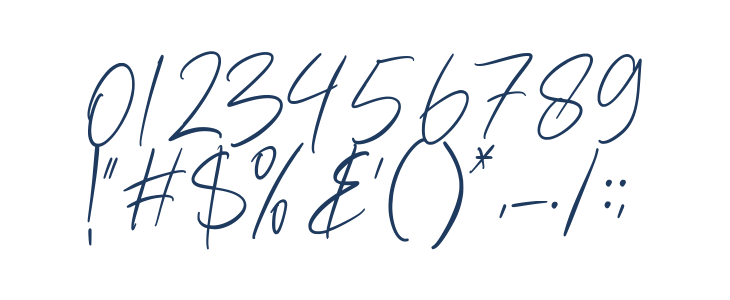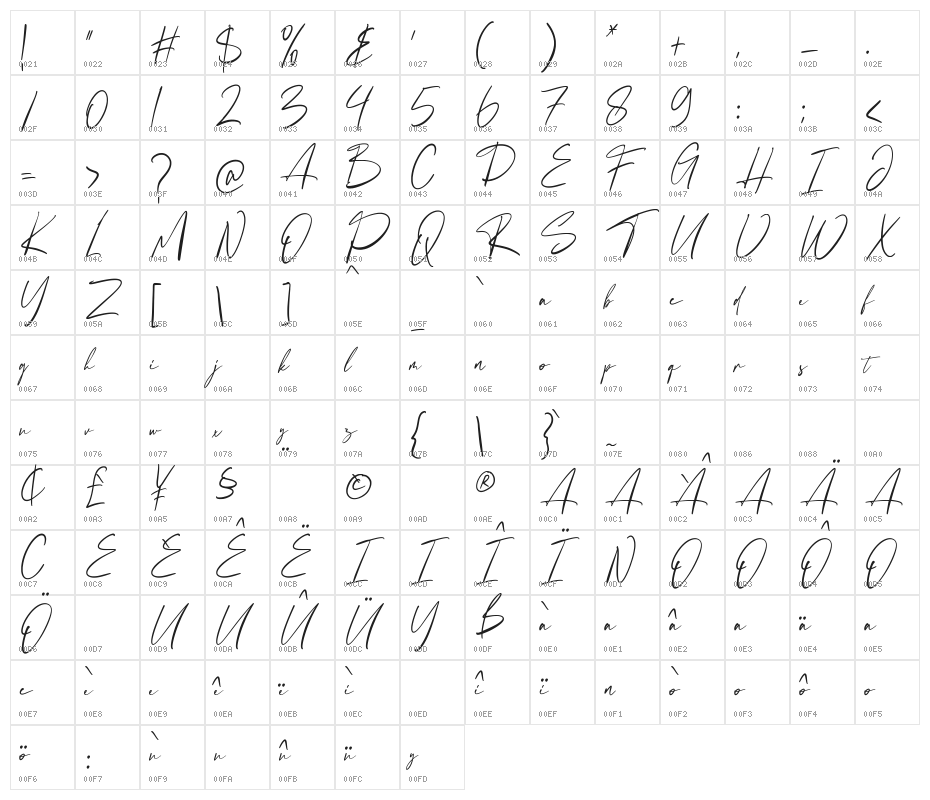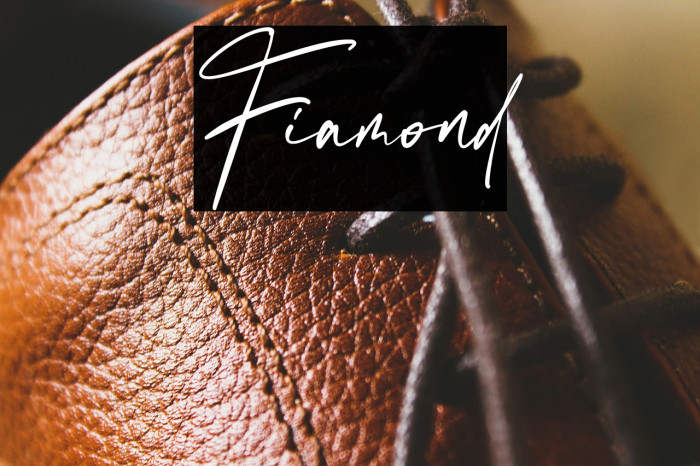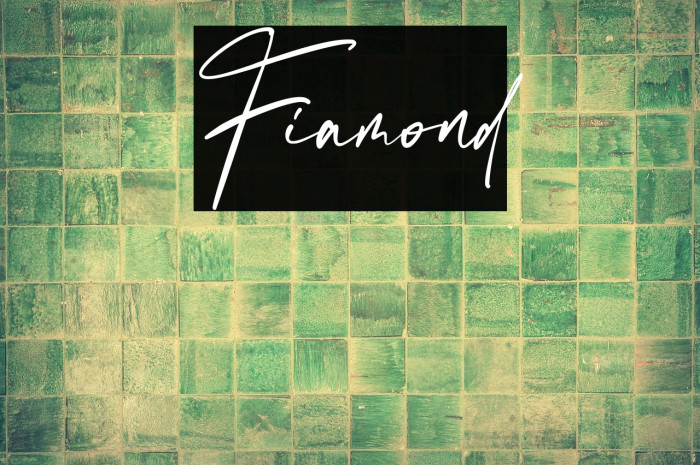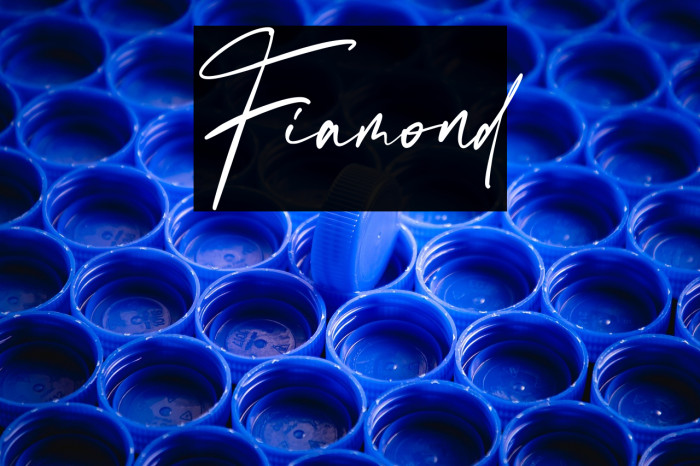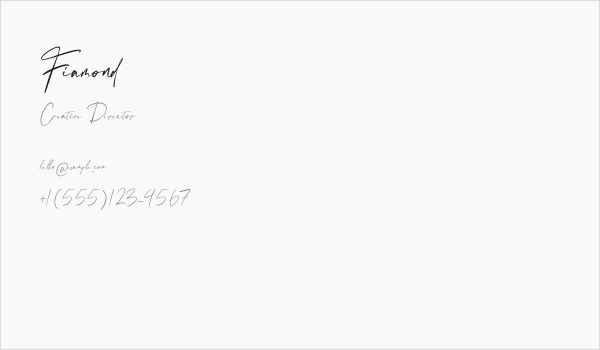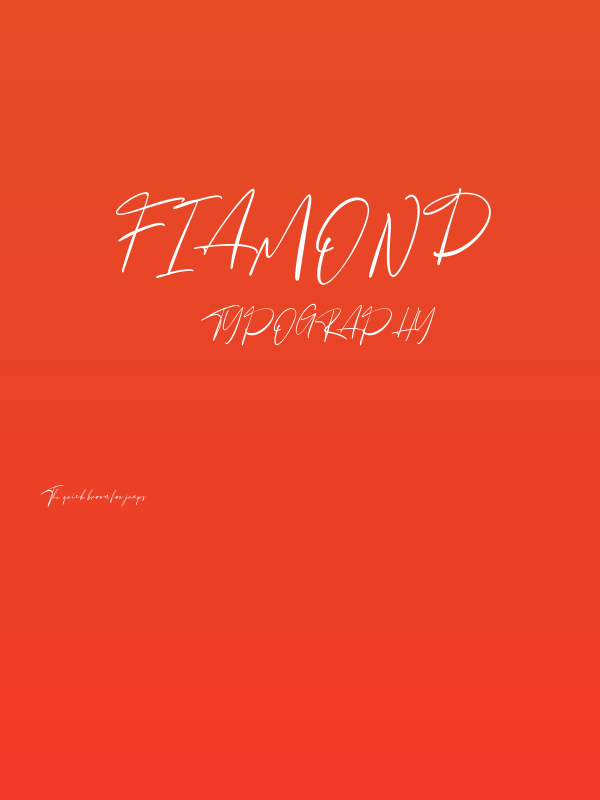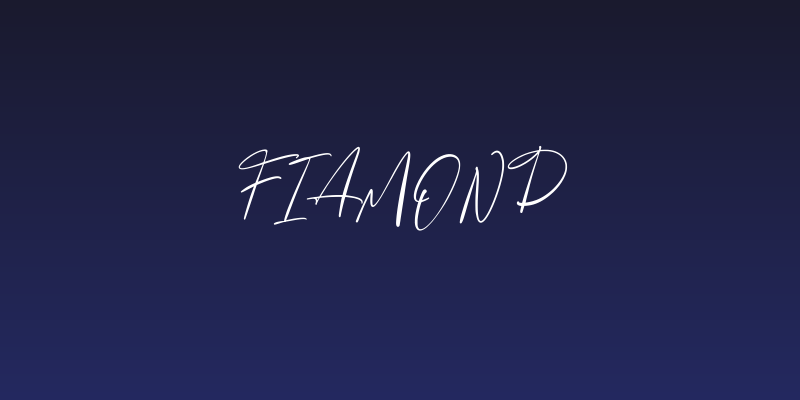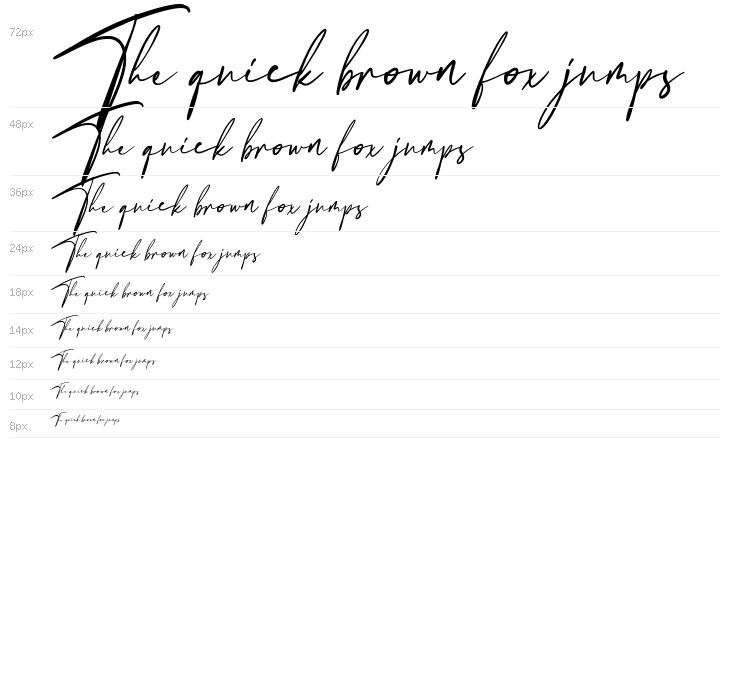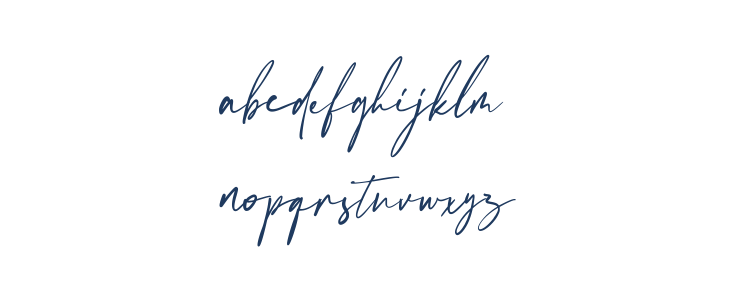
Fiamond Font
Fiamond Description
This font exhibits a dynamic and fluid handwritten style, characterized by its elegant and flowing letterforms. The uppercase letters are tall and slightly slanted, giving a sense of movement and grace. The lowercase letters maintain a consistent rhythm with smooth curves and loops, enhancing the handwritten aesthetic. The numerals are distinct and maintain the same fluidity, ensuring readability while preserving the artistic style. Special characters are integrated seamlessly, matching the overall design. This font's organic and expressive nature makes it ideal for projects that require a personal touch.
| Use Case | Logos, Invitations, Artistic projects |
| Proposed Projects | Ideal for wedding invitations, personal branding, greeting cards, and artistic projects. |